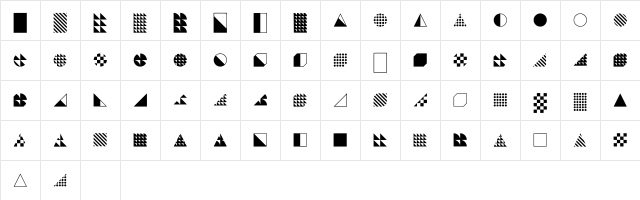
Instantdecor Regular
Design Context for Instantdecor Typeface
Instantdecor is a composed and adaptable typeface that performs quietly and consistently across a wide range of design contexts.